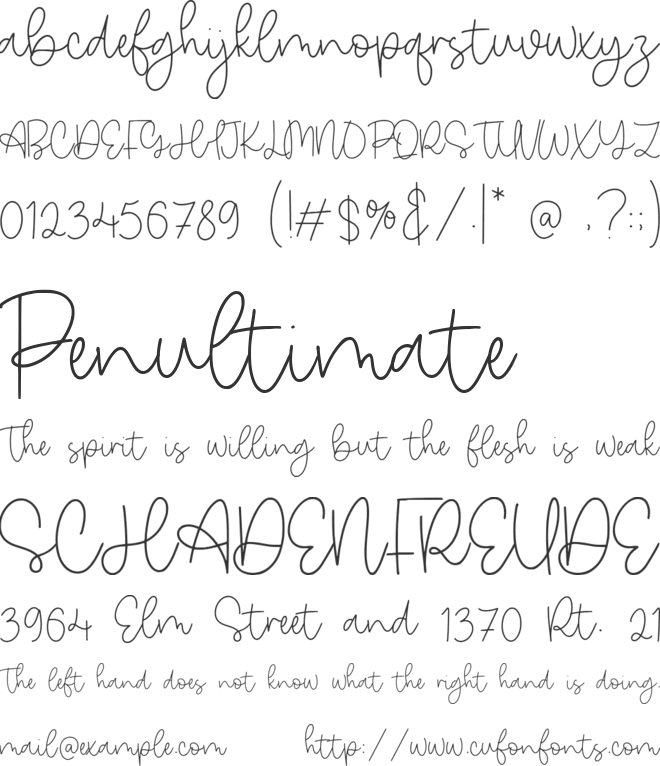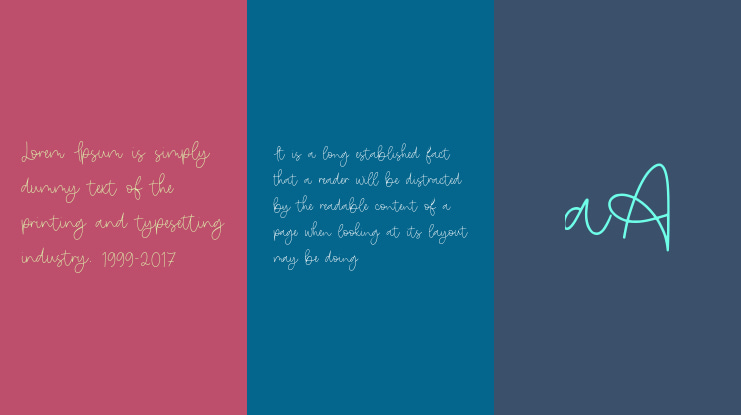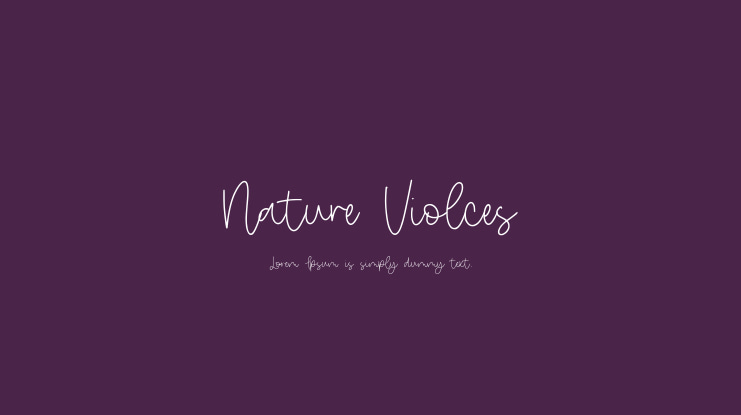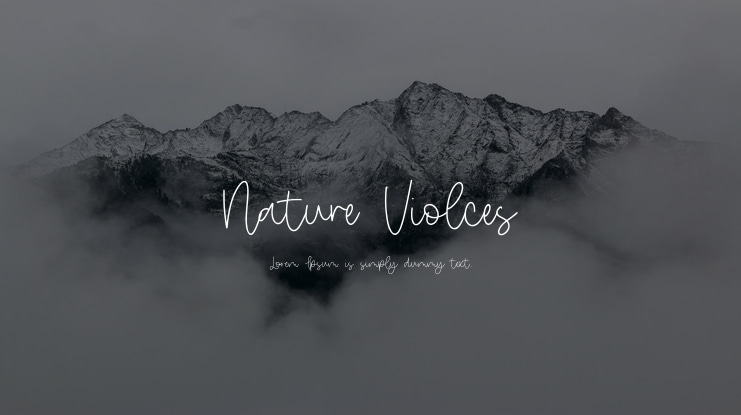
Nature Violces Font
Introducing by Letterative Studio : Nature Violces Font
Nature Violces is a Modern Monoline Handwritten Font
Nature Violces is perfect for product packaging, branding project, megazine, social media, wedding, or just used to express words above the background.
Nature Violces also multilingual support